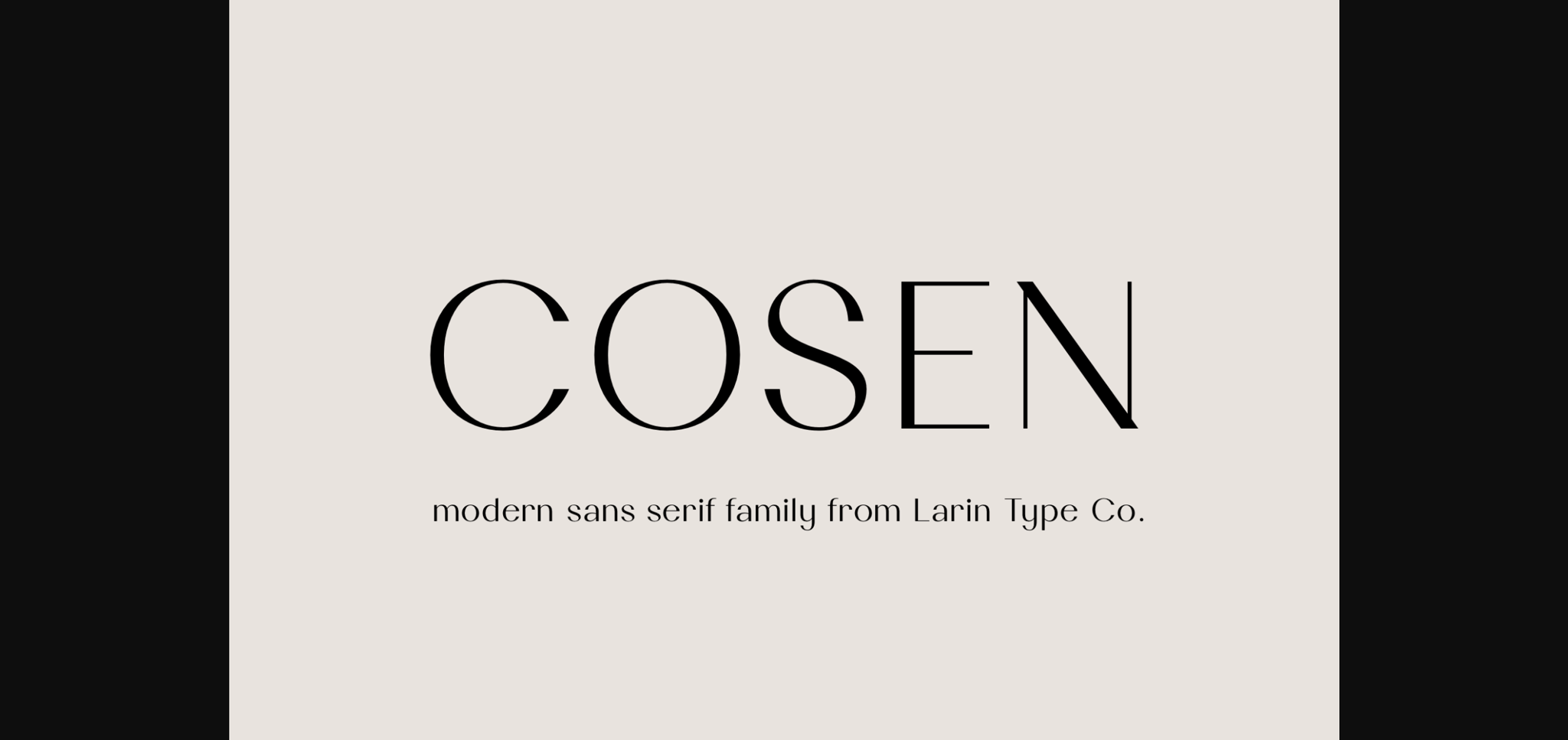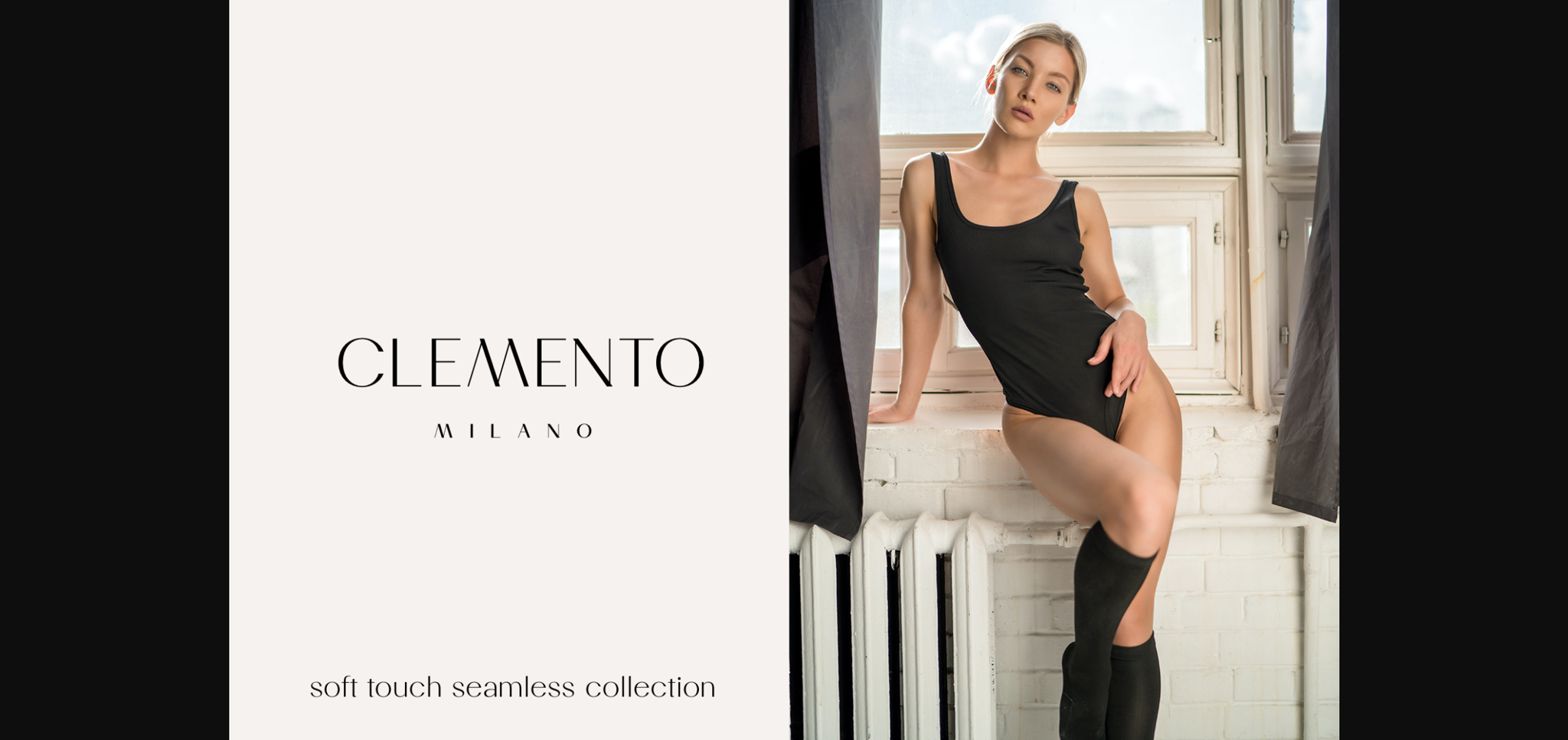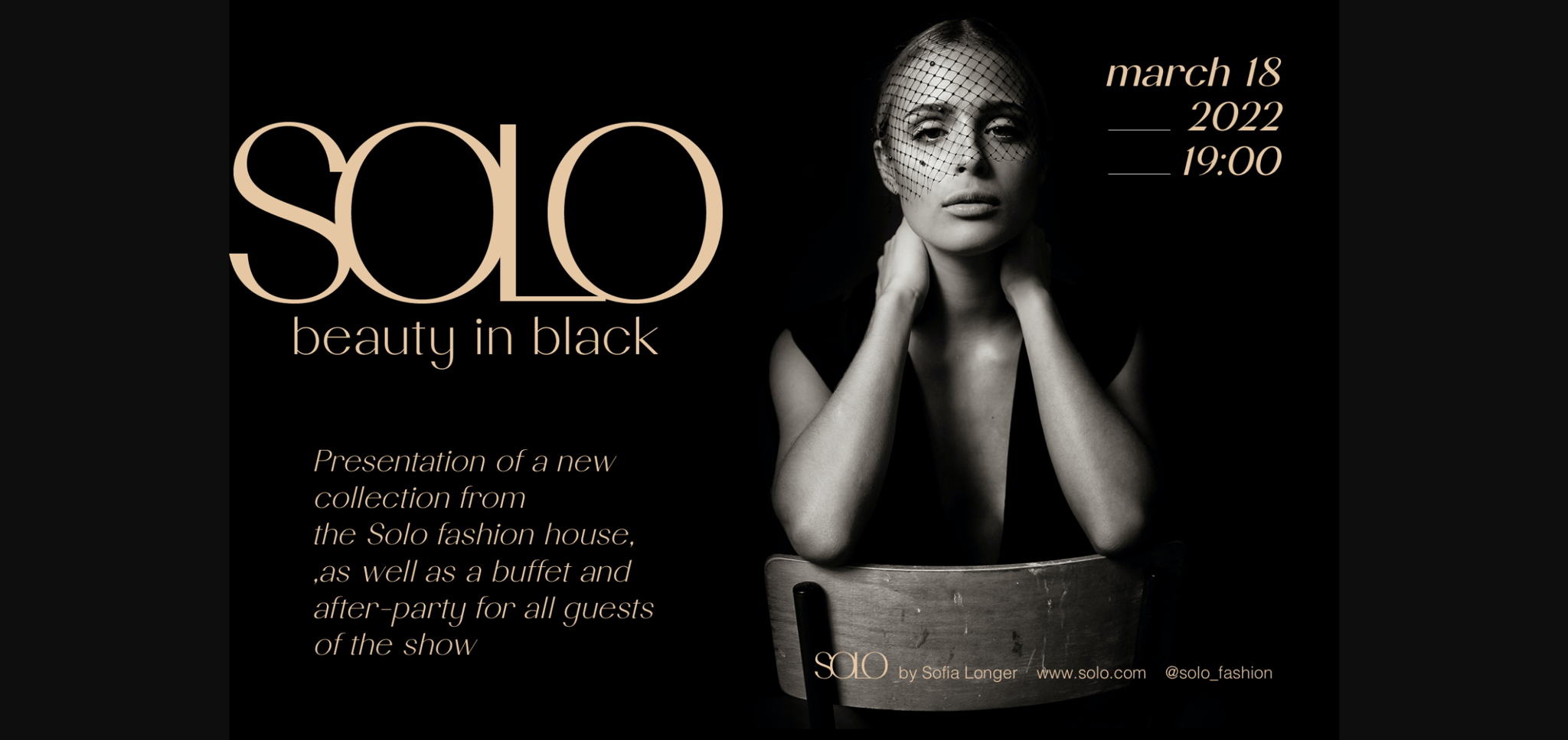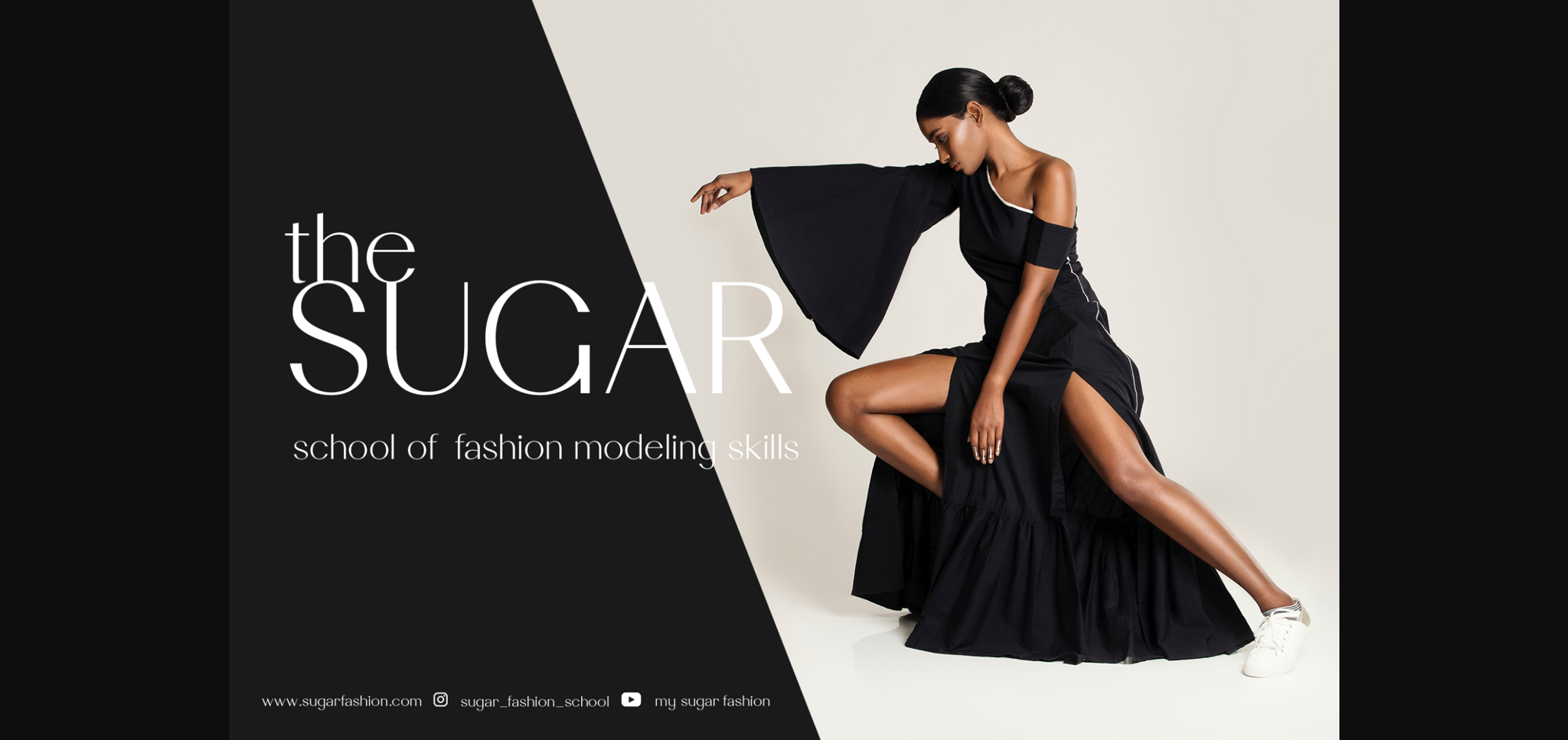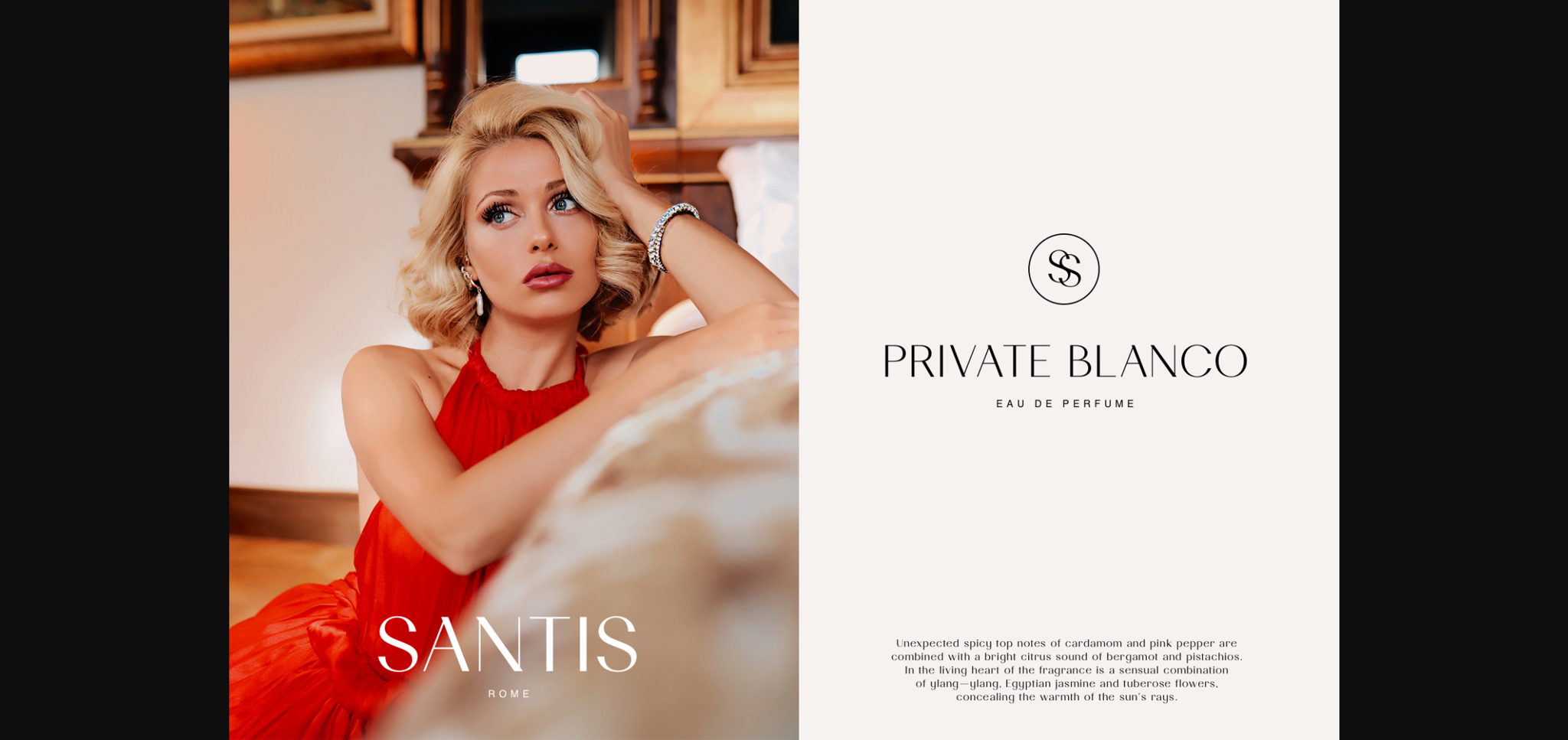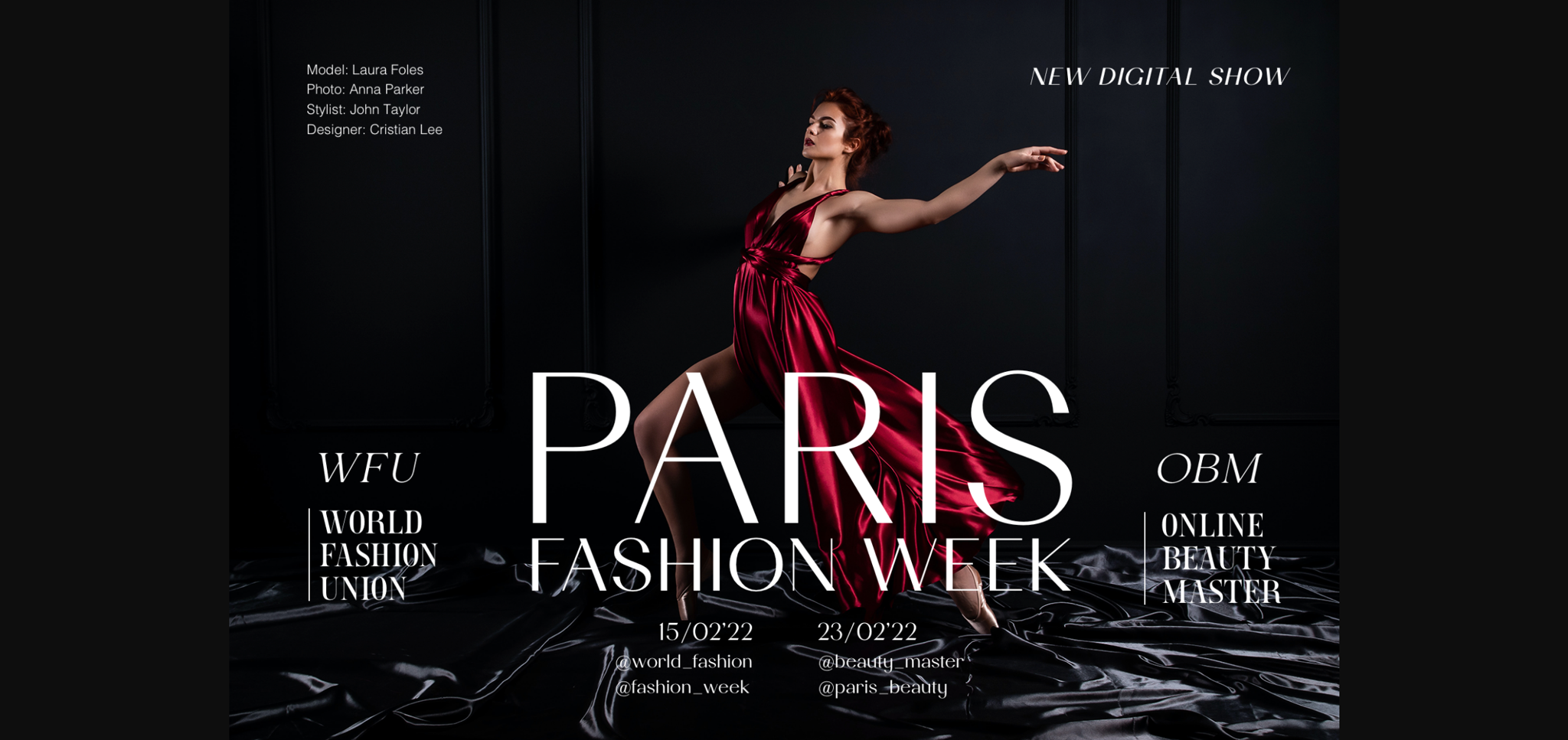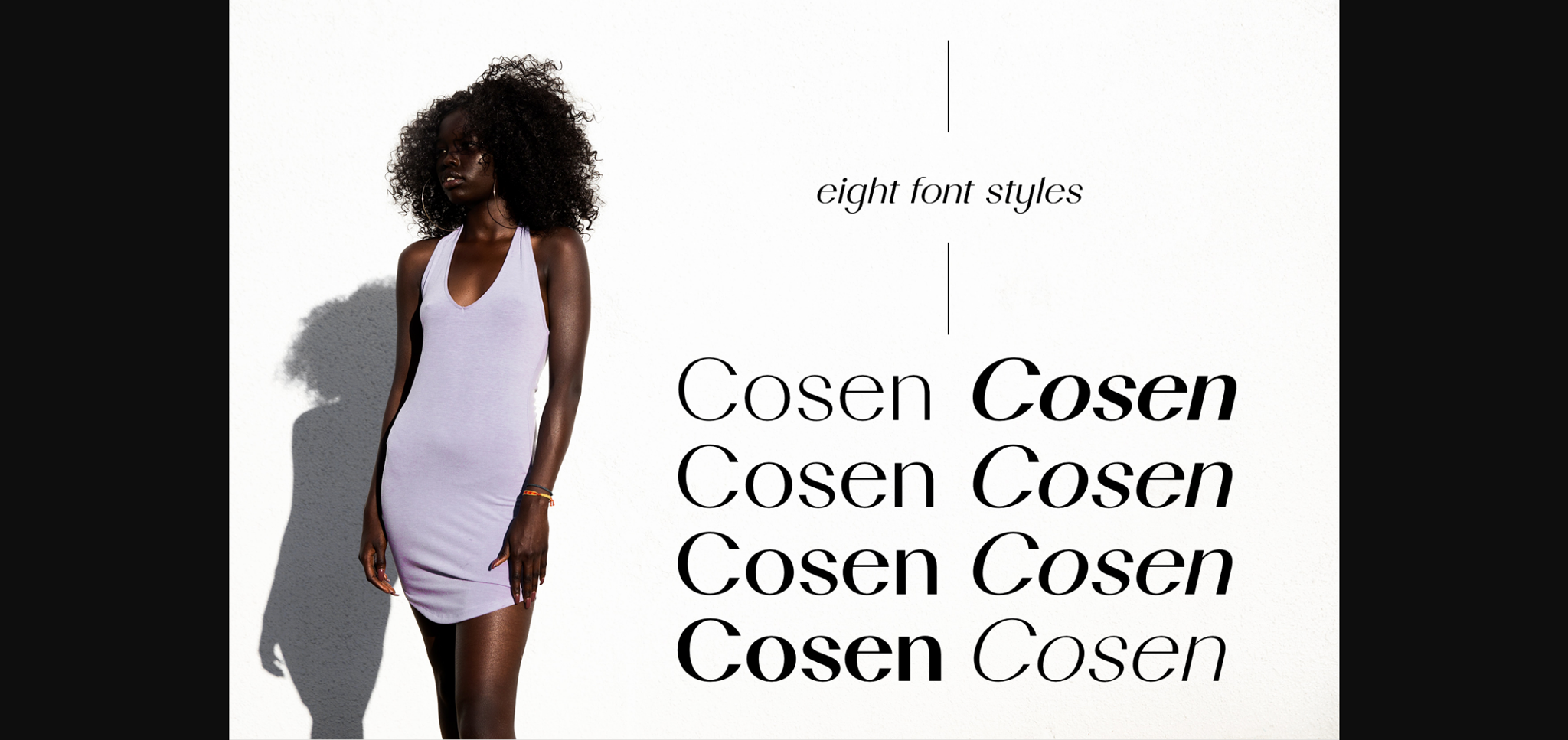
About Cosen Font
Cosen is an elegant and modern sans-serif font and a fashionable solution for your projects. Stylish, graceful, and flowing, this font will definitely elevate the look of any of your beautiful creations while keeping them grounded and natural.